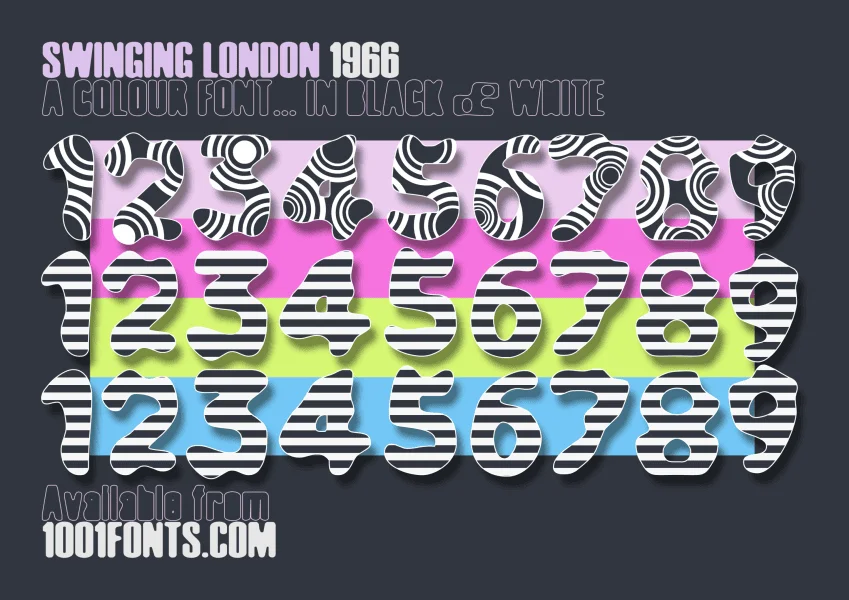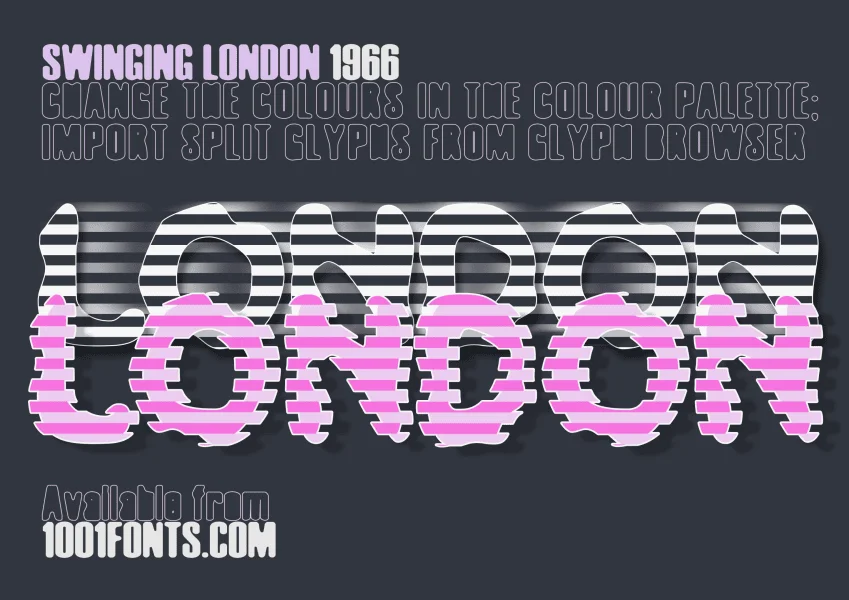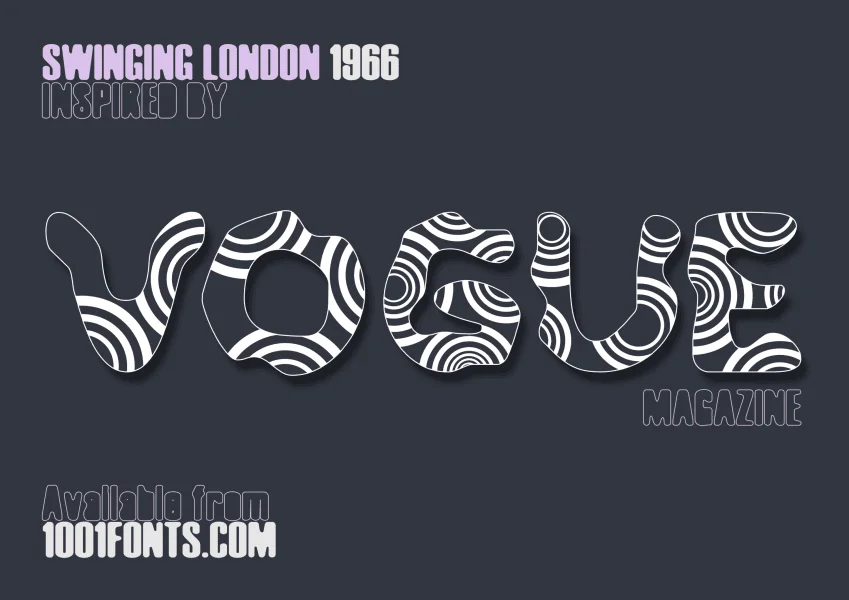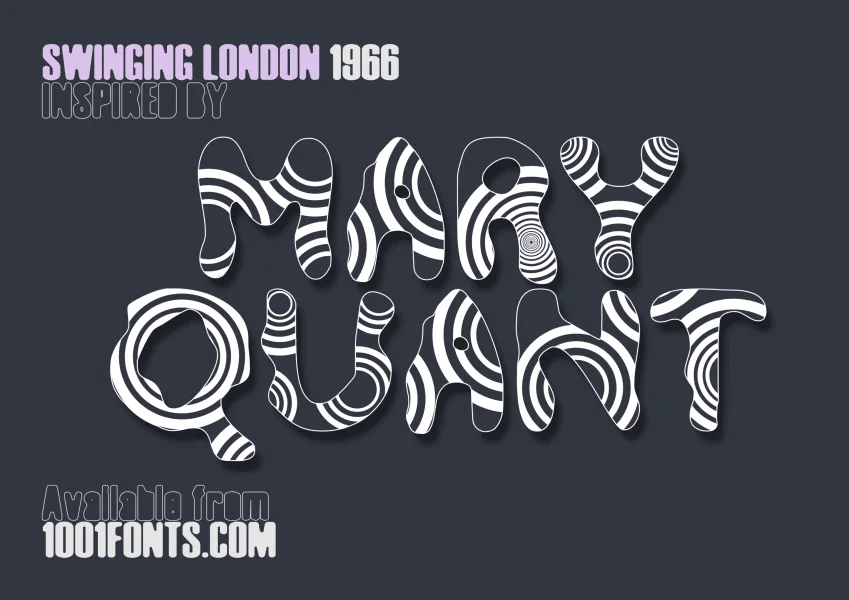
Swinging London 1966
A colour font …in black & white
Swinging London 1966 Circles
Swinging London 1966 Stripes
Swinging London 1966 Stripes Reversed
Swinging London 1966 Circles II (COMING SOON)
Swinging London 1966 is my first COLR font (based on my 'Bumpy' font family). It was designed in FontLab 8, Affinity Designer 2.0 and Affinity 3.0 and is a unique and hypnotic 1960s-inspired headline font for the fashion industry, mod fashion, bohemians, sport and activewear, the music industry, marketing, book covers and product designs.
It was inspired by icons of the London scene in the 1960s:
Mary Quant
Vogue
Twiggy
Sandie Shaw
The Kinks
The Small Faces
The Beatles
The Rolling Stones
The Mini Skirt
The Mini Car
Pop Art
Carnaby Street, London
King's Road, Chelsea
High Street, Kensington
Swinging London 1966
is a psychedelic acid trip of circles, horizoCarntal stripes or horizontal stripes (reversed) in a limited colour palette of off-white and off-black. However, you can easily change any of the default colours of ‘Swinging London 1966’ font in Affinity 3, CorelDraw, Adobe Photoshop, Illustrator, InDesign to complement your design project.
The 1960s was an iconic period of British style, fashion, music and design.
Groovy…